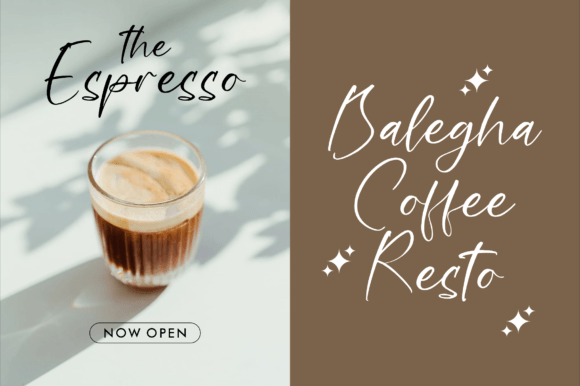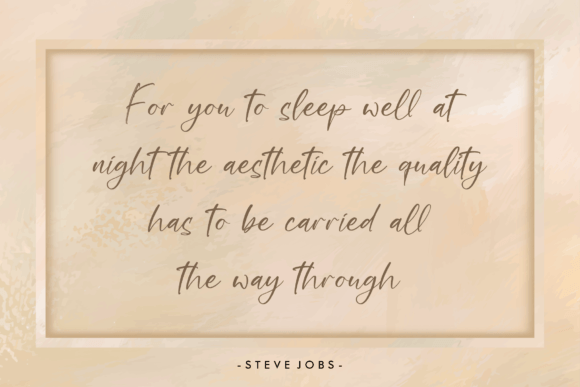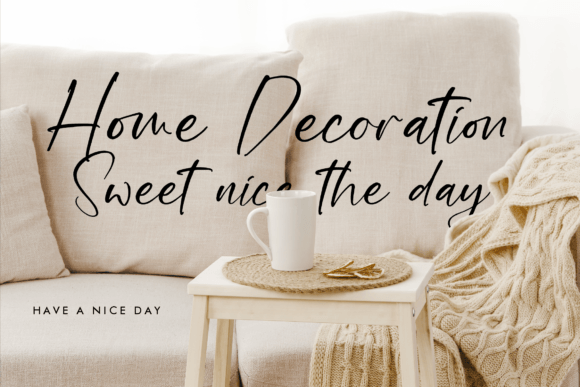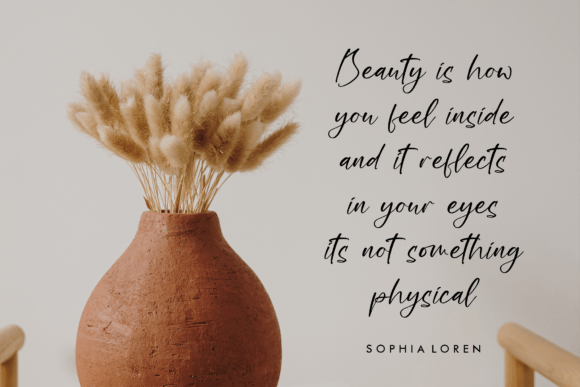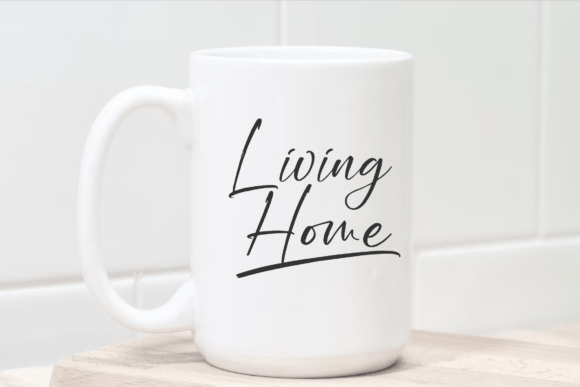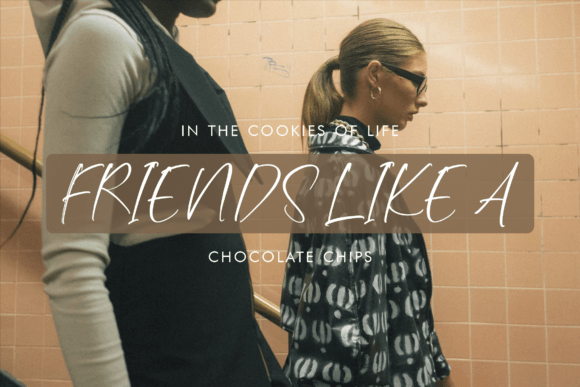
Grovynda Bendion Font: Elevate Your Designs with Elegant Script Style
Are you a designer or crafter looking for a unique and elegant script font to elevate your projects? Look no further than Grovynda Bendion Font. This casual script font is perfect for a wide range of applications, from logos and branding projects to homeware designs, product packaging, and more.
What is Grovynda Bendion Font?
Grovynda Bendion Font is a beautifully crafted script font that exudes elegance and sophistication. Its casual yet refined style makes it suitable for a variety of projects, including:
- Logos and branding projects
- Homeware designs
- Product packaging
- Mugs
- Quotes
- Posters
- Shopping bags
- T-shirts
- Book covers
- Name cards
- Invitation cards
- Greeting cards
- Labels
- Photography
- Watermark
- Special events
Key Features of Grovynda Bendion Font
Grovynda Bendion Font boasts several key features that make it an excellent choice for designers and crafters:
- Elegant Script Style: Grovynda Bendion Font features a beautiful, flowing script style that adds a touch of elegance to any project.
- Casual yet Refined: The font’s casual yet refined style makes it perfect for a wide range of applications, from formal to informal projects.
- Highly Versatile: Grovynda Bendion Font is suitable for use in various industries, including fashion, beauty, food, and more.
- Easy to Read: The font is designed to be easy to read, making it perfect for use in body text, headings, and titles.
Benefits of Using Grovynda Bendion Font